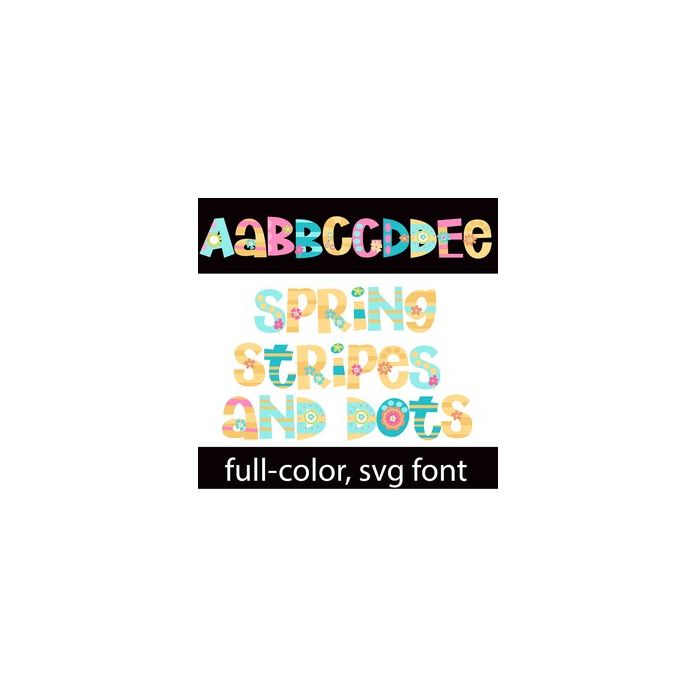
This full-color font features stripes and dots in an spring color palette with flowers here and there. There is an alt case w/ additional colors you can access through your system or Silhouette's glyph map.